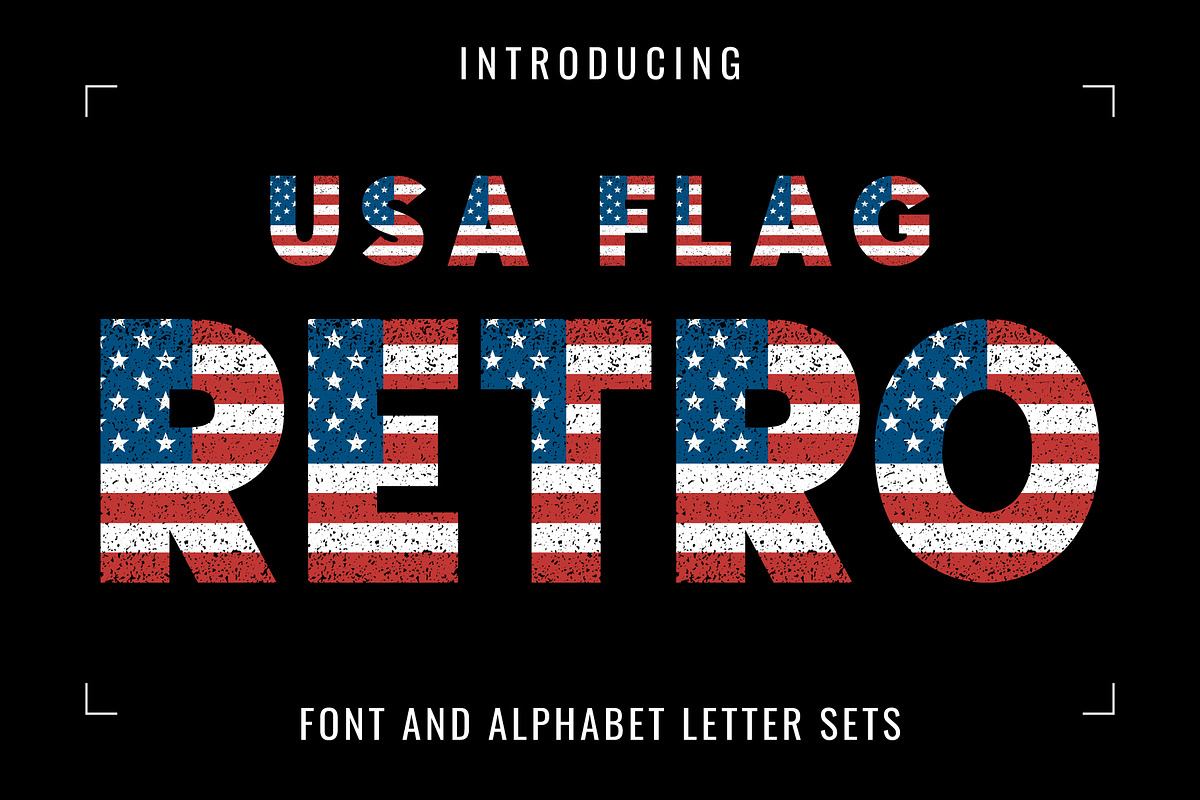
USA Flag Retro Font Free Download
The USA Flag Retro Font Free Download is a bold and patriotic typeface designed to bring a vintage, all-American flair to your designs. Featuring retro-inspired letterforms and flag-like elements, this font is perfect for creating eye-catching logos, posters, event branding, and promotional materials that celebrate American heritage. Whether you're designing for Independence Day, a patriotic event, or a vintage-inspired project, the USA Flag Retro Font adds a strong, nationalistic touch to your work.
USA Flag Retro Font Free Download is ideal for designers looking to add a bold, vintage touch to their work. Perfect for Independence Day promotions, Americana branding, or vintage-style posters, this font will make your designs stand out with a retro patriotic style. Download it today and infuse your projects with an iconic, red, white, and blue look!